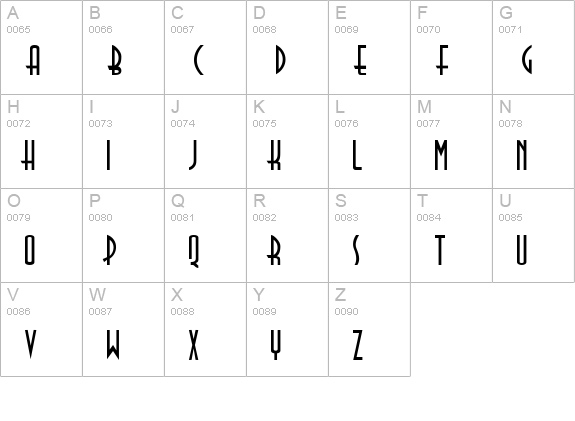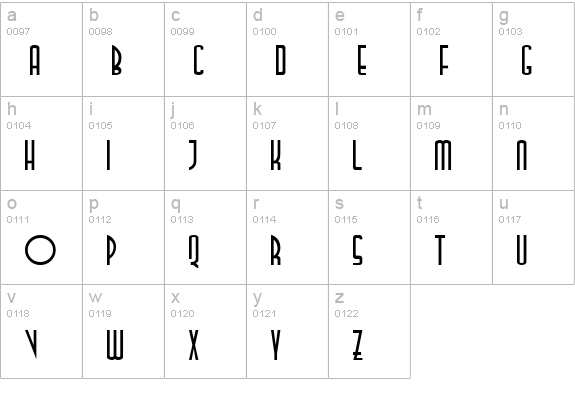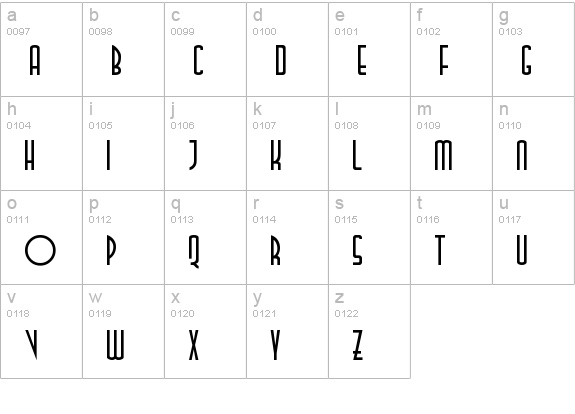
TallDeco Normal Font Details
TallDeco Normal is the standard, neutral variant in the TallDeco typeface family \xE2\x80\x94 well suited to general body text, paragraphs, and standard typographic work.
TallDeco Normal font is a stunning display typeface that exudes elegance and sophistication. With its tall and slender letterforms, this font is perfect for adding a touch of class to any design project. The clean lines and balanced proportions of TallDeco Normal make it incredibly versatile, whether you're using it for headlines, logos, or branding materials. Its modern yet timeless design captures attention and creates a lasting impression. But what sets TallDeco Normal apart is that it is available for free! Yes, you read that right. You can freely download this exquisite font at FontsMarket.com. This means that you can add a touch of luxury to your designs without breaking the bank. Whether you're a professional designer or a hobbyist, TallDeco Normal is a must-have in your font collection. Its extensive character set, including uppercase, lowercase, numerals, and punctuation marks, ensures that you have all the tools you need to create stunning typography. So don't miss out on this incredible opportunity to elevate your designs with TallDeco Normal. Download it for free today at FontsMarket.com and let your creativity soar!